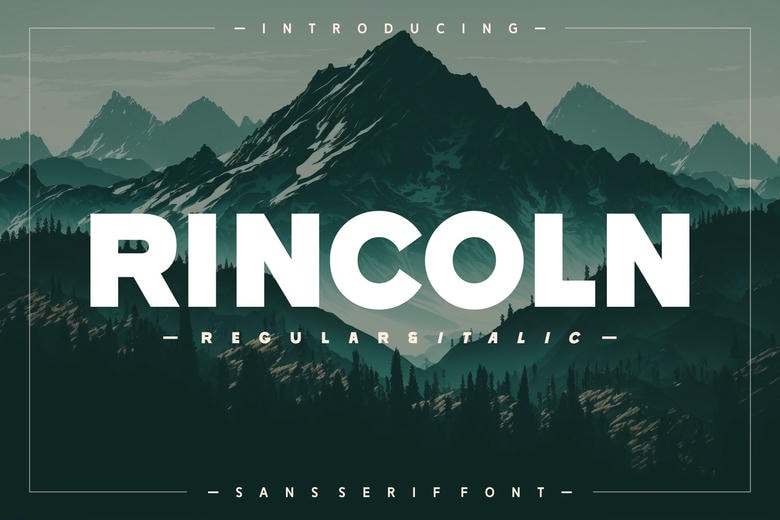
Rincoln Font
Rincoln is clean and agressive sans serif typeface that speaks of sturdiness and assurance. Clean and straight, the geometric forms depart a minimalist impression; a stroke weight of consistent thickness and appropriate letter spacing makes it easily readable to any size.
The character shapes and additional strokes make Rincoln rather nontraditional, which can be useful for branding and advertising, as well as for being used in publication design if the client wants the text to be striking.
Rincoln Sans Serif Font